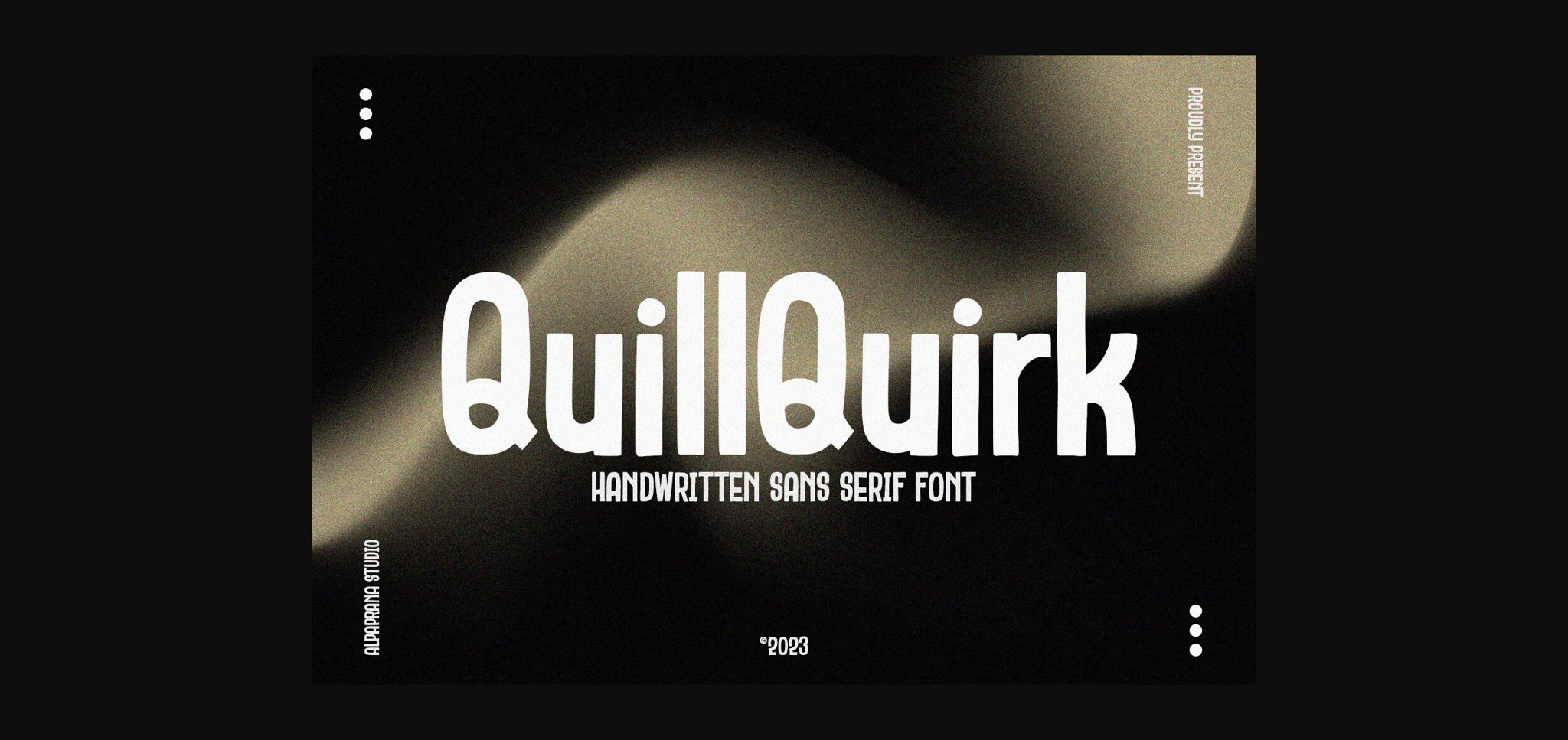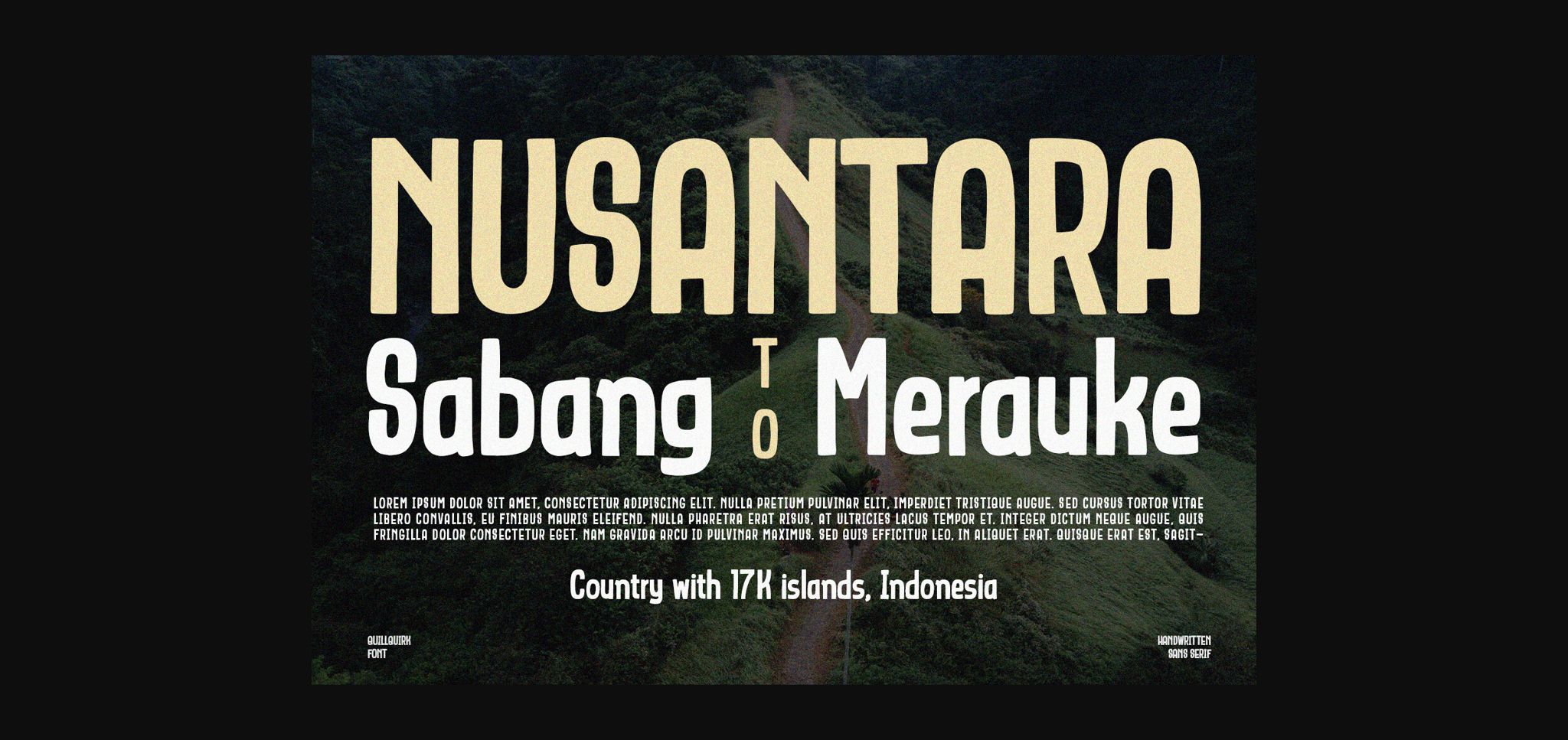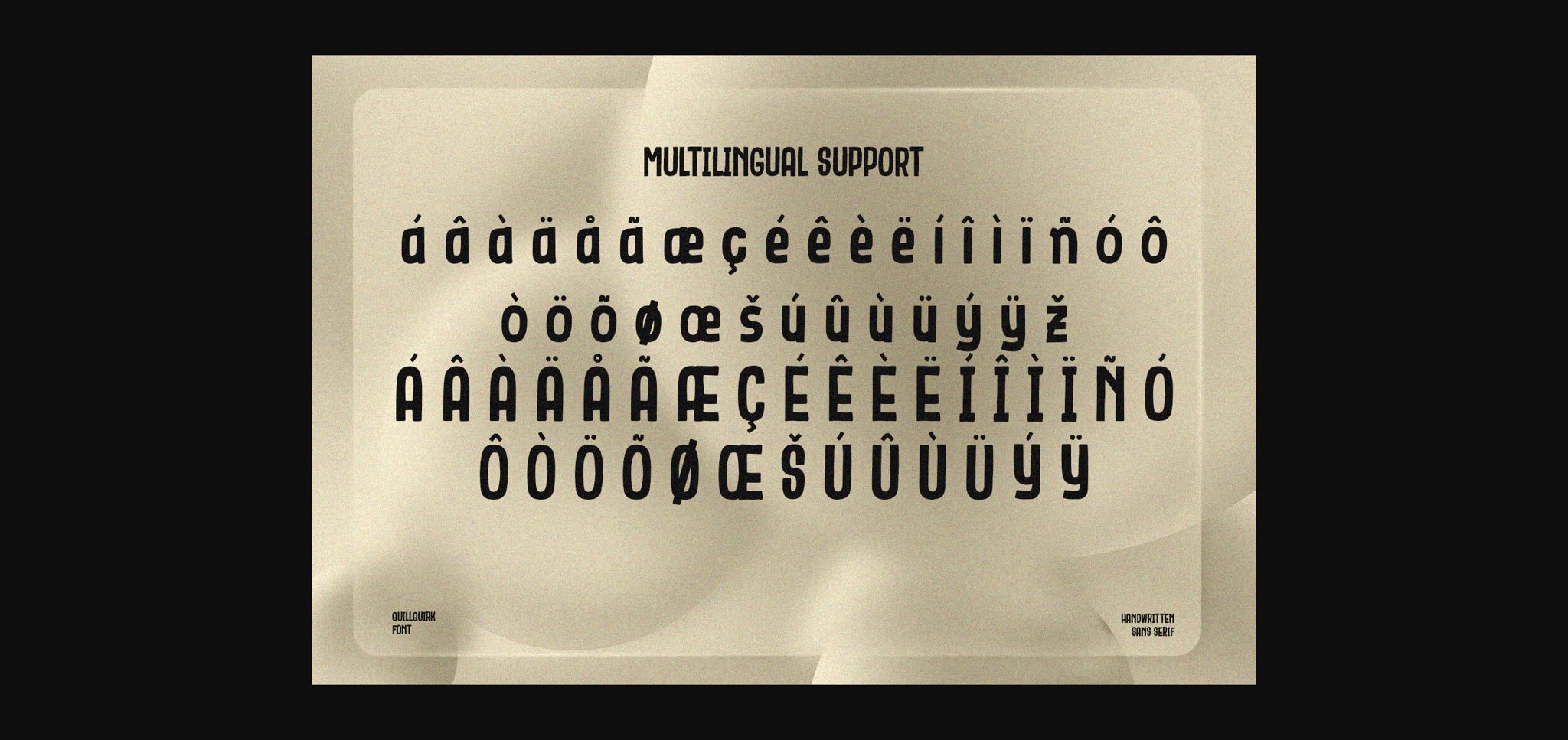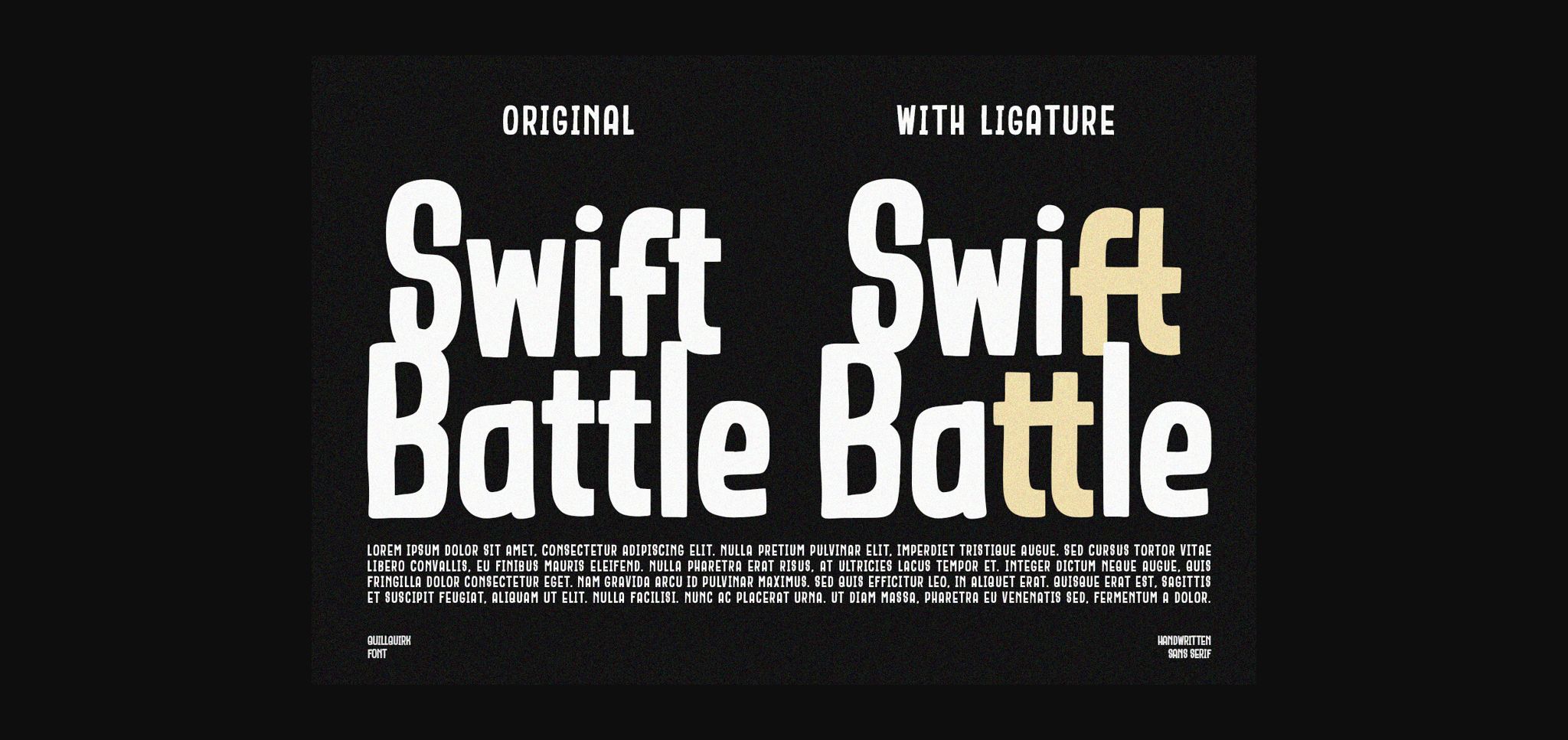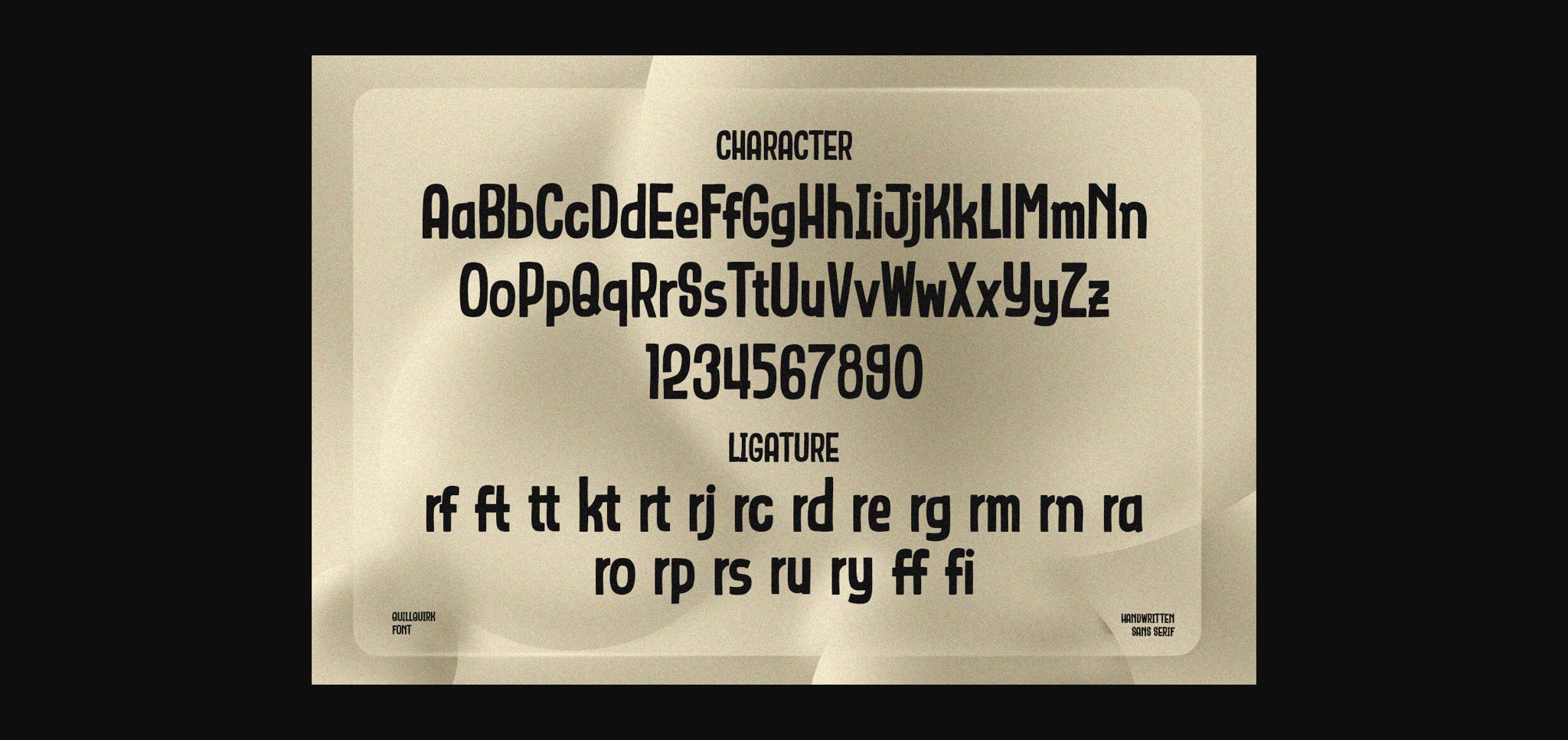
About Quillquirk Font
QuillQuirk is a sans serif font with authentic and modern feels. It will be perfectly used for packaging, posters, shopping bags, t-shirts, book covers, photography, special events and other design projects.